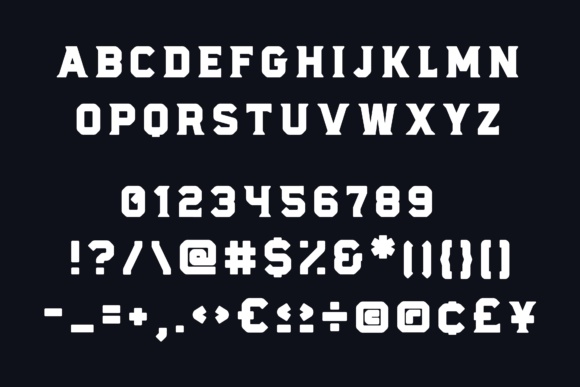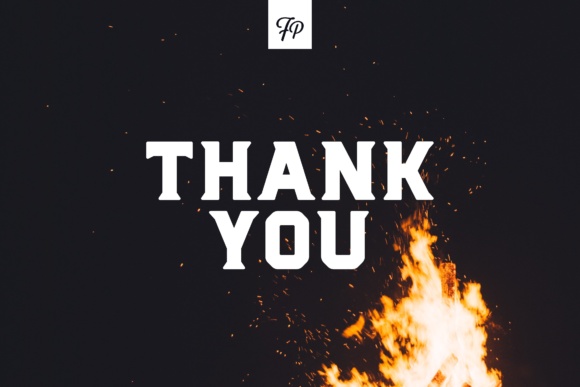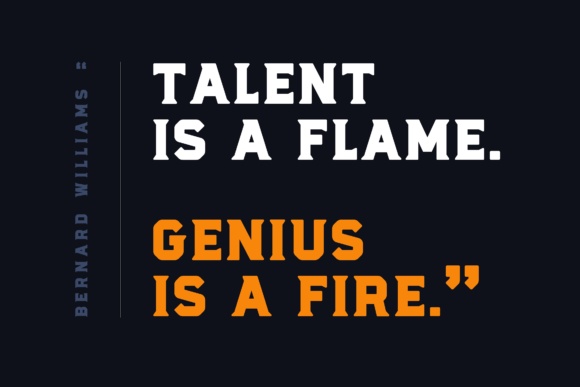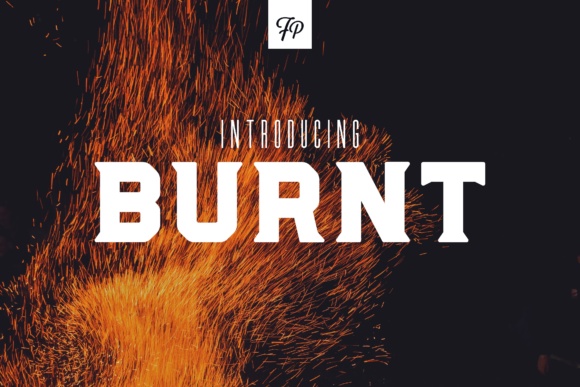
Introducing Burnt Font: A Bold and Unique Display Font for Impactful Designs
Are you looking for a font that can make a strong statement and add an impactful feel to your designs? Look no further than Burnt Font, a bold, strong, and unique display font that’s perfect for designers and crafters who want to take their work to the next level. In this article, we’ll explore the features and benefits of Burnt Font, and show you how it can be used to elevate your designs.
The Power of Burnt Font
Burnt Font is a bold and eye-catching font that’s designed to make a statement. Its strong and unique letterforms are perfect for creating impactful designs that grab attention and leave a lasting impression. Whether you’re working on a logo, a poster, or a website, Burnt Font is the perfect choice for designers who want to add a touch of boldness and personality to their work.
Key Features of Burnt Font
- Bold Weight: Burnt Font has a bold weight that’s perfect for creating eye-catching designs. The font is designed to be noticed, and its bold weight ensures that your message gets across.
- Serifs: The serifs on Burnt Font help increase legibility, even at small sizes. This makes it perfect for use as both a display font and a body text option.
- Unique Letterforms: Burnt Font has unique and distinctive letterforms that set it apart from other fonts. The font’s letterforms are designed to be memorable and impactful, making it perfect for logos, headlines, and other design elements.
Using Burnt Font in Your Designs
Burnt Font is a versatile font that can be used in a variety of design applications. Here are a few ideas to get you started:
- Logos: Burnt Font is perfect for creating bold and eye-catching logos that make a statement.
- Posters: Use Burnt Font to create eye-catching posters that grab attention and communicate your message.
- Websites: Burnt Font can be used as a display font or body text option on websites, adding a touch of boldness and personality to your online presence.
- Social Media Graphics: Use Burnt Font to create eye-catching social media graphics that stand out in crowded feeds.
Tips for Using Burnt Font Effectively
Here are a few tips for using Burnt Font effectively in your designs:
- Use it sparingly: Burnt Font is a bold font, and using it sparingly can help it have more impact. Use it for headlines or key design elements, and pair it with a simpler font for body text.
- Experiment with colors: Burnt Font looks great in a variety of colors, so don’t be afraid to experiment and find the perfect color to match your brand.
- Pair it with other fonts: Burnt Font can be paired with other fonts to create a unique and interesting design. Try pairing it with a simple sans-serif font for a bold and modern look.
Burnt Font is a bold, strong, and unique display font that’s perfect for designers and crafters who want to add an impactful feel to their designs. With its bold weight, serifs, and unique letterforms, Burnt Font is a versatile font that can be used in a variety of design applications. Whether you’re working on a logo, poster, website, or social media graphic, Burnt Font is a great choice for designers who want to make a statement.